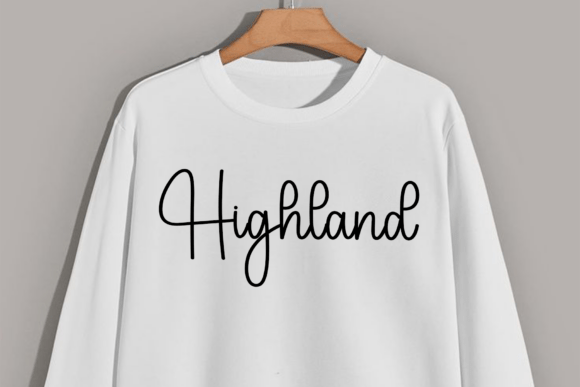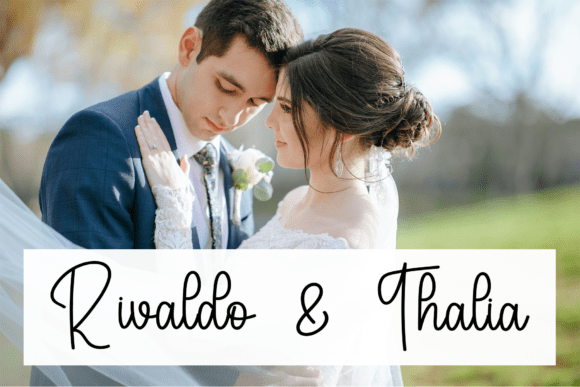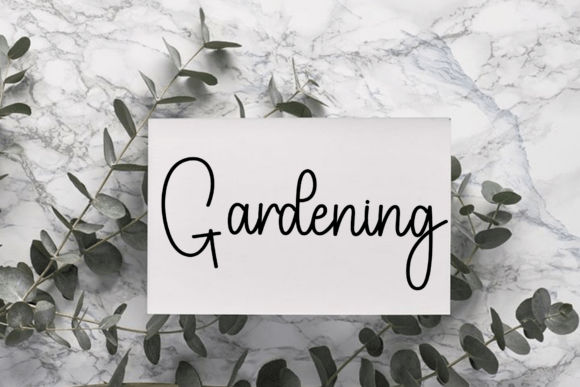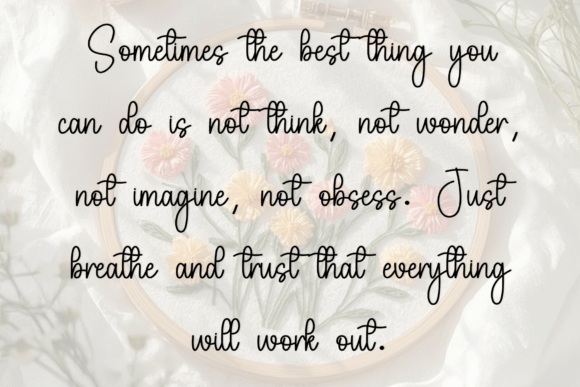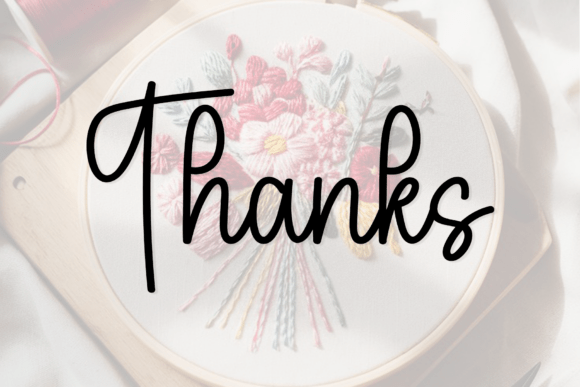
The Elegance of Embroidery Font: A Designer’s Delight
I still remember the project that led me to discover the Embroidery Font. I was working on a luxury wedding stationery set for a client who wanted everything to be perfect, from the save-the-date cards to the wedding invitations. As I scrolled through font after font, I just couldn’t find the right fit. That was until I stumbled upon Embroidery Font. Its elegant, fluid script instantly captured the essence of what my client was looking for – a modern, sophisticated typeface that exuded luxury and refinement.
- ✨ Elegant and fluid handwritten script that adds a touch of sophistication to any design
- ✅ Perfect for luxury wedding stationery, intimate event branding, high-end editorial signatures, and sophisticated lifestyle photography overlays
- 💫 Works beautifully in both digital and print formats
- 🎨 Highly versatile and can be used for a wide range of creative projects
While Embroidery Font is a stunning addition to any design project, there are a few things to keep in mind. 🤔 For instance, its elegance can sometimes make it a bit challenging to read in smaller sizes. ⚠️ Additionally, because of its script nature, it might not be the best choice for very long texts or body content.
The Story Behind Embroidery Font
Embroidery Font was inspired by the intricate and delicate art of embroidery. Its designer aimed to capture the fluidity and elegance of embroidered lines in a typeface that could be used across various mediums. The result is a font that not only pays homage to the traditional craft but also brings a modern twist to the world of typography.
| Font Name | Embroidery Font |
| Author | Black line |
Q: Is Embroidery Font suitable for body text?
A: While Embroidery Font is stunning for headings and short texts, its elegance and script nature make it less ideal for long body texts. For readability, it’s best used sparingly.
Q: Does Embroidery Font support OpenType features?
A: Yes, Embroidery Font supports OpenType features, including stylistic alternates and glyphs, allowing for a high degree of customization and creativity in your designs.